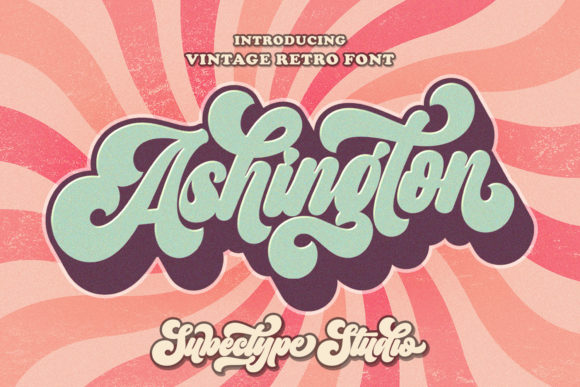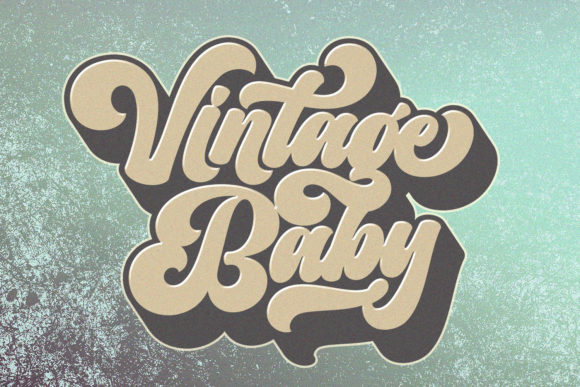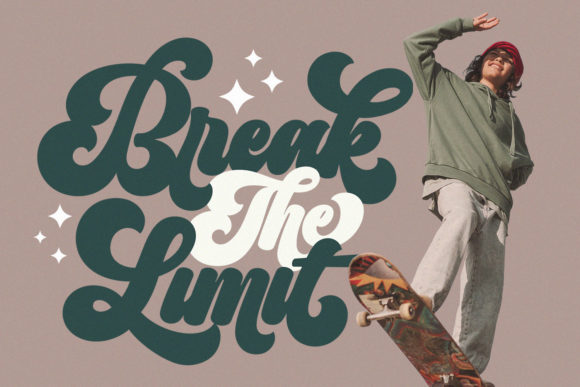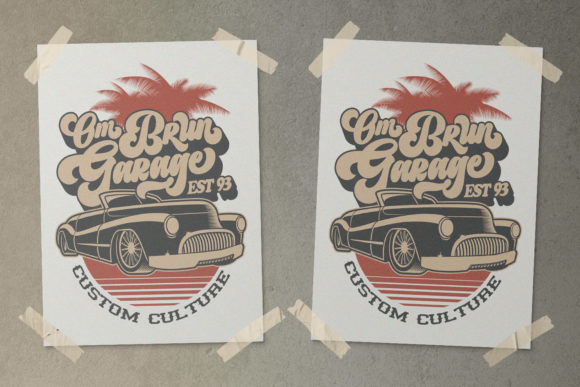
Ashington Font: Groovy Vintage Font for Headlines & Retro Designs
About the Ashington Font
Make a bold statement with Ashington Font, a powerful and memorable font. Ashington is a vintage and bold handwritten font. Fall for its ravishing style and use it to create gorgeous designs. This font is PUA encoded which means you can access all glyphs and swashes with ease!
Ashington’s bold, vintage style makes it ideal for headlines, short text blocks in posters or packaging, and branding elements requiring a strong visual impact. It excels in projects needing a touch of nostalgic charm, such as vintage-inspired logos or event invitations. However, its handwritten nature and considerable weight make it less suitable for body text or UI elements where readability is paramount. Extended use could lead to fatigue.
Pairing Ashington effectively depends on the desired mood. For a balanced contrast, consider pairing it with a clean sans-serif like Montserrat for body copy, or a geometric sans-serif like Futura for a more modern feel. If a more luxurious aesthetic is sought, a delicate serif such as Playfair Display would provide elegant contrast.
The overall personality of Ashington is bold, confident, and slightly playful, lending itself to brands projecting a vintage-inspired yet modern sensibility. Avoid using it for projects requiring extreme sophistication or minimalist aesthetics.